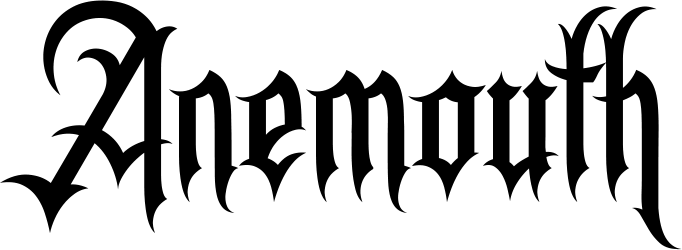
Anemouth Font
Go with a gothic font and inspire your customers. Anemouth comes with sharp and jagged letters and works perfectly for posters, flyers, apparel, and so on. It gives an informal feeling and may not be that readable in some letters. If you wish to have more masculine tattoo fonts, head over to our boundless website.